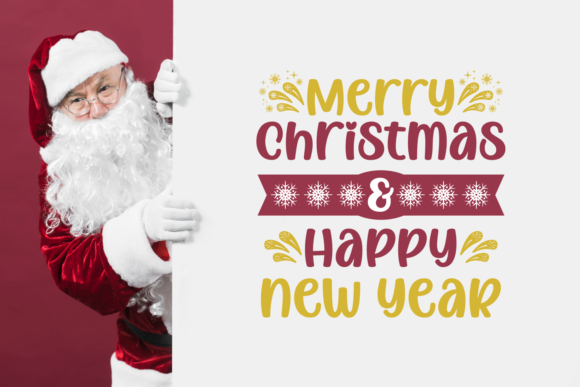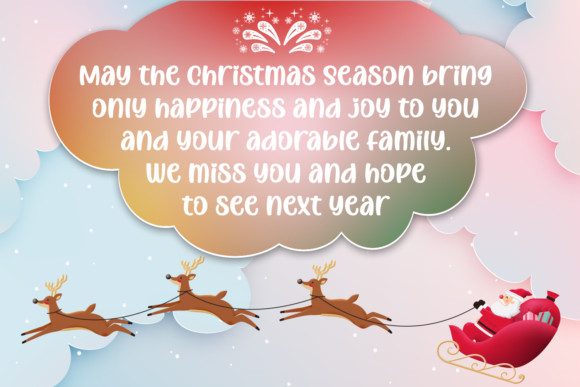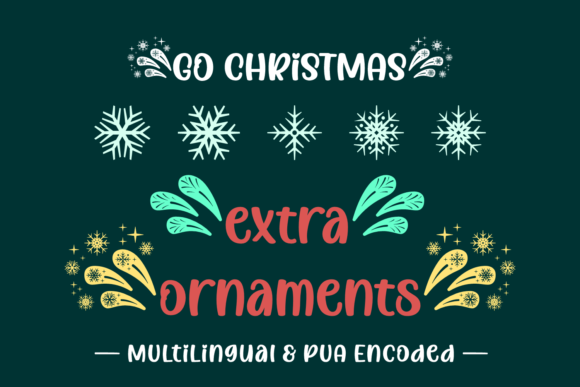
The Magic of Go Christmas Font: Elevate Your Designs with a Neat, Cute, and Thick Lettered Handwritten Font
I’ll never forget the time I was working on a Christmas project for a client, and I just couldn’t find the right font to match the festive vibe I was going for. The design was supposed to be fun, playful, and inviting, but every font I tried seemed either too boring or too over-the-top. That’s when I stumbled upon Go Christmas Font, and let me tell you, it was like a holiday miracle! 🎄
Go Christmas is a neat, cute, and thick lettered handwritten font that has become an incredibly valuable asset to my font library. Its versatility and charm have allowed me to elevate any creation, regardless of the topic. In this article, I’ll share my honest review of Go Christmas Font, provide a practical guide on how to use it on various platforms, and explore similar fonts that you might find useful.
- ✅ The font’s thick, handwritten letters are perfect for creating eye-catching titles and headings.
- ✅ Go Christmas has a wide range of applications, from holiday-themed designs to everyday projects.
- ✅ The font is incredibly easy to read, even at smaller sizes.
- ✅ The unique, cursive style adds a touch of personality to any design.
- ⚠️ Some letters may appear a bit cramped when used at very small sizes or in all-caps.
- ⚠️ Limited availability of stylistic alternates, which might limit creative variations.
The Story Behind Go Christmas Font
Go Christmas Font was designed with the intention of creating a fun and playful font that’s perfect for the holiday season. The designer aimed to create a font that’s both elegant and whimsical, making it suitable for a wide range of applications. Whether you’re designing holiday cards, gift tags, or social media graphics, Go Christmas Font is sure to bring a touch of festive cheer to your creations.
| What is the best way to use Go Christmas Font? | The best way to use Go Christmas Font is to experiment with different sizes, styles, and OpenType features to add personality to your text. |